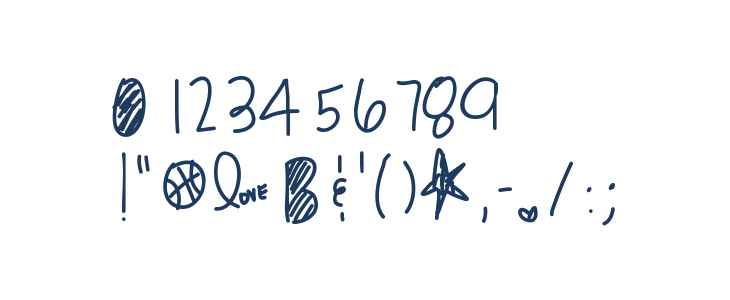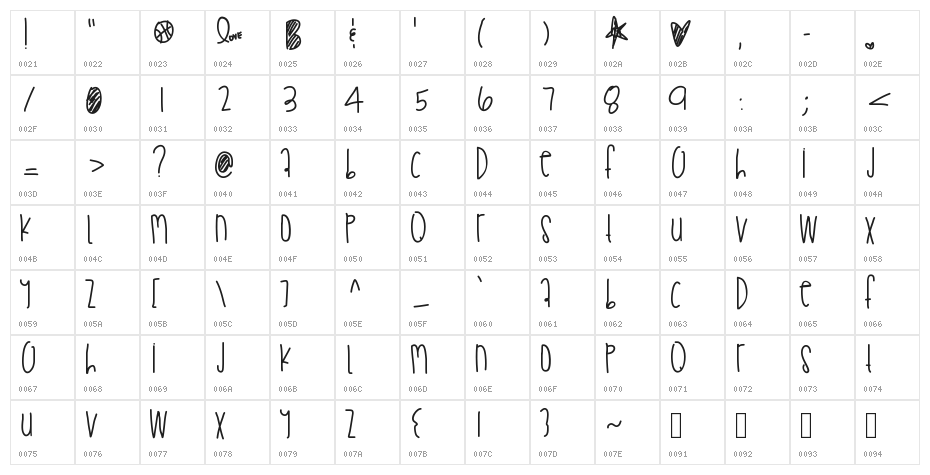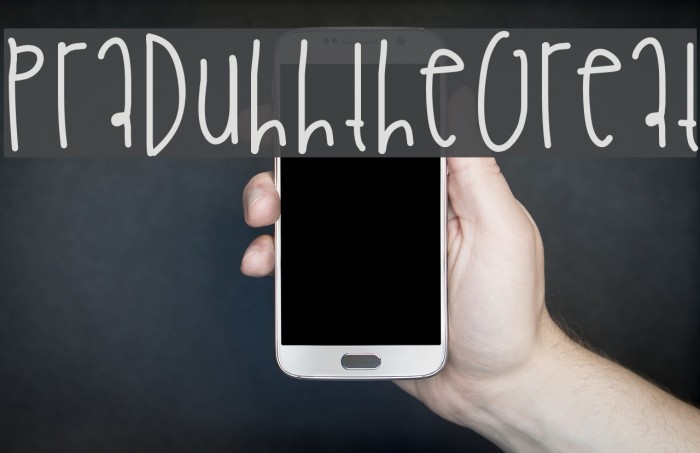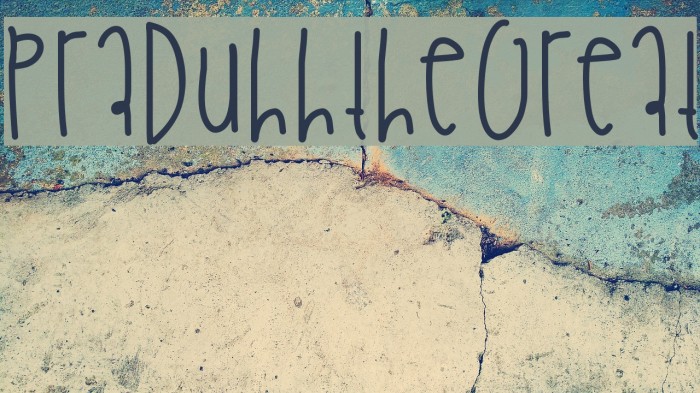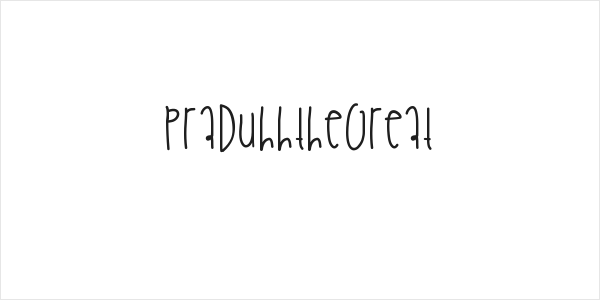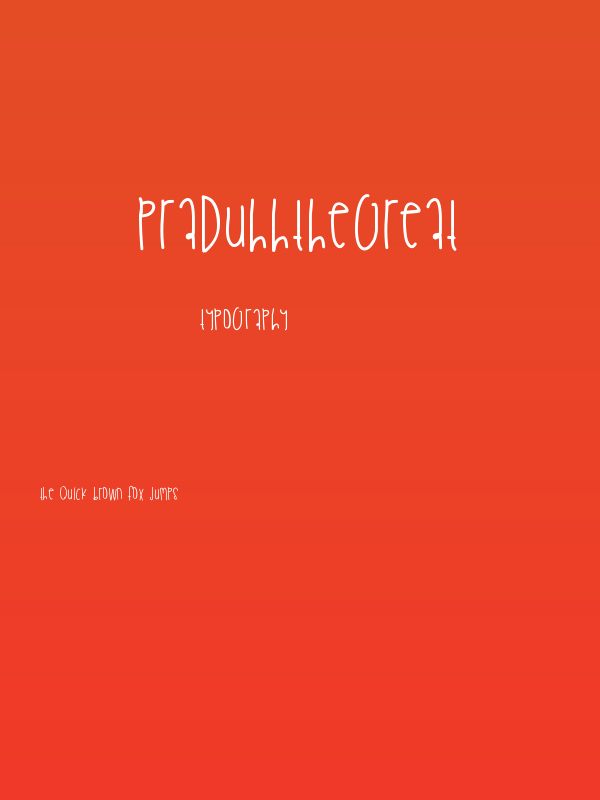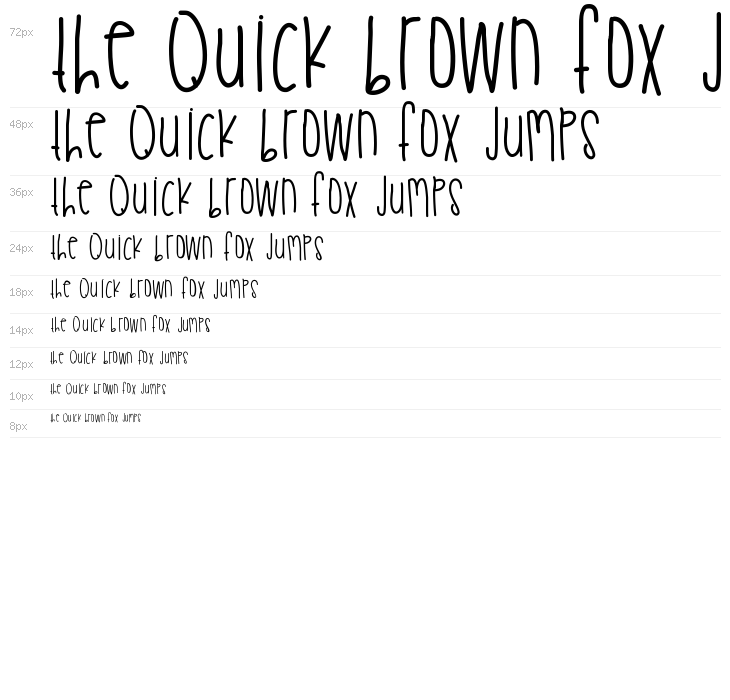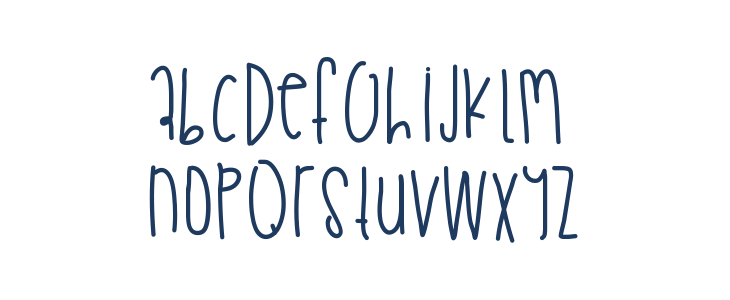
PraduhhTheGreat Font
PraduhhTheGreat Description
This font features a playful and whimsical handwritten style, characterized by its tall, narrow letterforms and slightly irregular strokes. The uppercase and lowercase letters maintain a consistent height, giving it a uniform appearance despite its casual nature. The numbers and special characters follow the same playful aesthetic, adding to the font's overall charm. The strokes are smooth and rounded, contributing to a friendly and approachable feel. This font is perfect for projects that require a personal touch, such as invitations, greeting cards, or children's book illustrations.
| Proposed Projects | Ideal for invitations, greeting cards, children's books, and playful branding. |